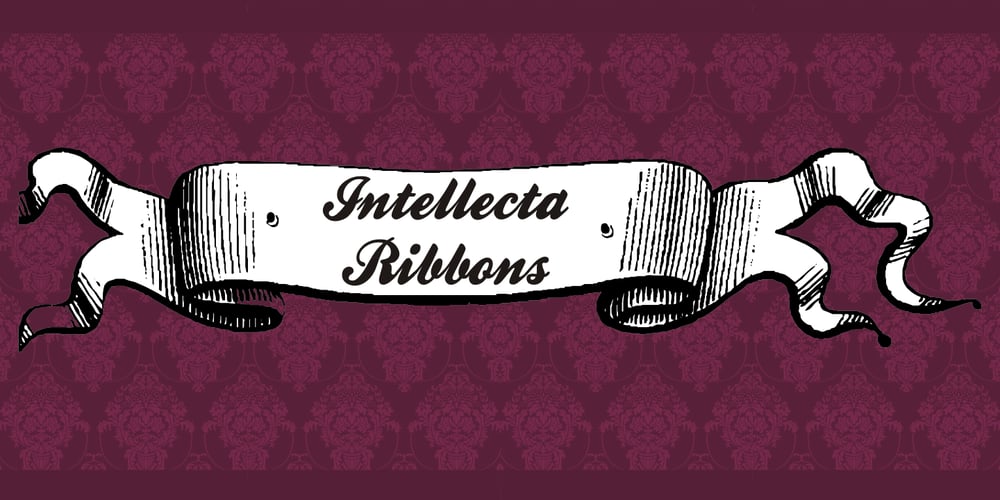
Intellecta Ribbons
Intellecta Ribbons font
Intellecta Ribbons Font Family was designed by Paulo W and published by Intellecta Design. Intellecta Ribbons contains 1 styles and family package options. Intellecta Ribbons is an elegant set of ribbons ready for many applications. With this set you can make tags, shopping sale designs, diverse invitations, discount seals, banners, posters or anything you want.